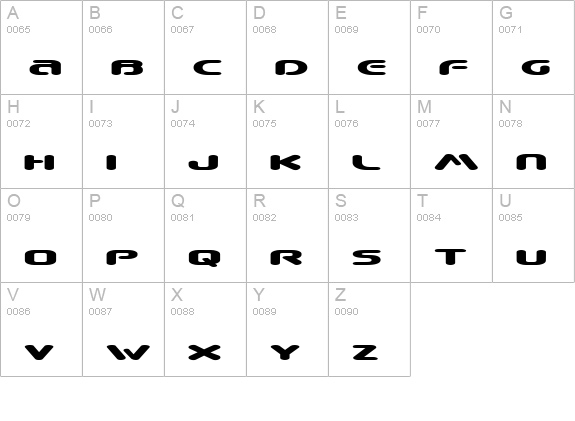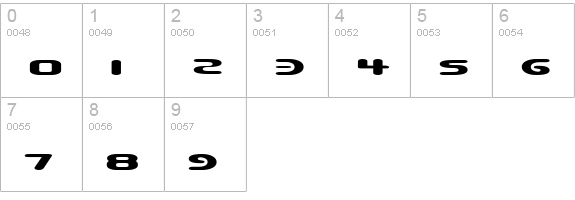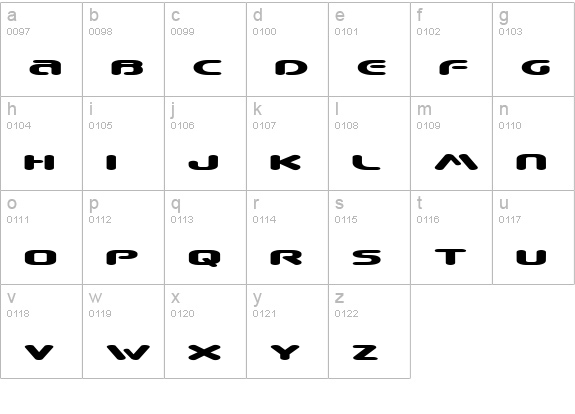
Beware Font Details
Introducing Beware font, a captivating and versatile typeface that is sure to make a bold statement in any project. With its unique and edgy design, Beware font adds a touch of personality and intrigue to your creative work. This font is perfect for headlines, posters, branding, and more. Best of all, Beware font is available for free download at FontsMarket.com, making it easily accessible for all your design needs. Don't miss out on this one-of-a-kind font that is sure to take your projects to the next level.